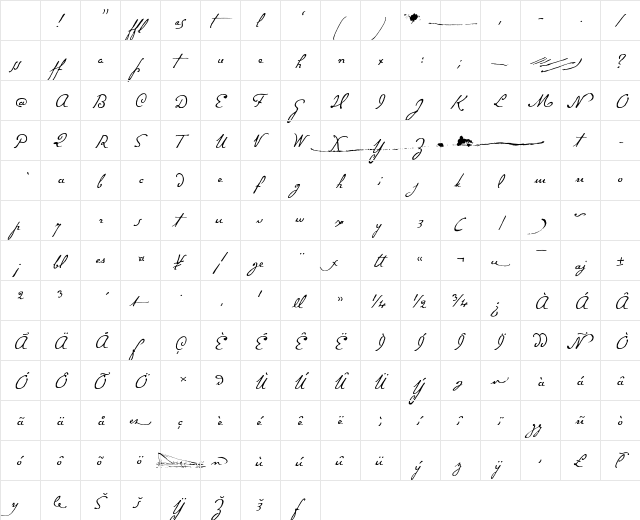
Complete P22 Gauguin Alternate Regular glyph index. Displaying only characters natively supported by P22 Gauguin Alternate Regular font.
P22 Gauguin Alternate is a composed and adaptable typeface that performs quietly and consistently across a wide range of design contexts.